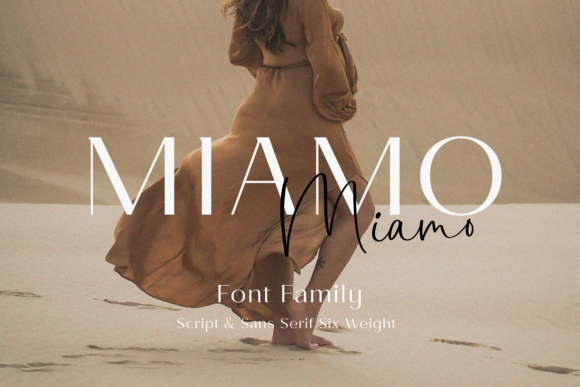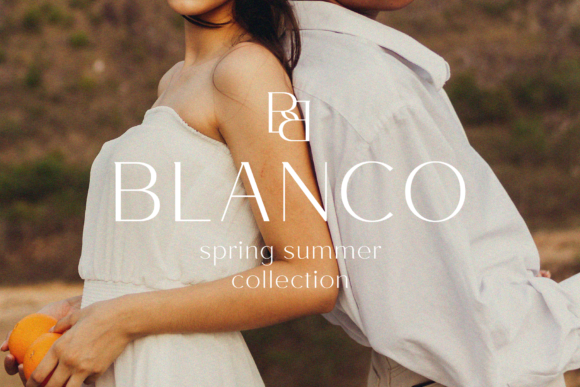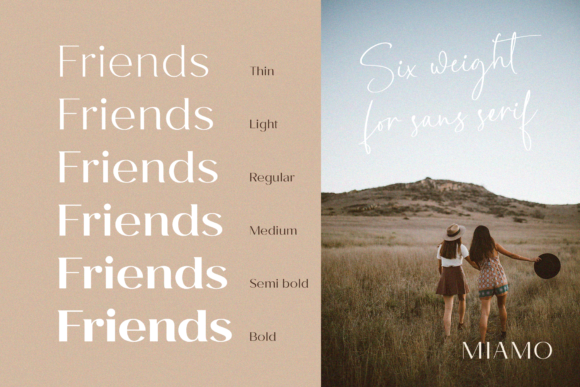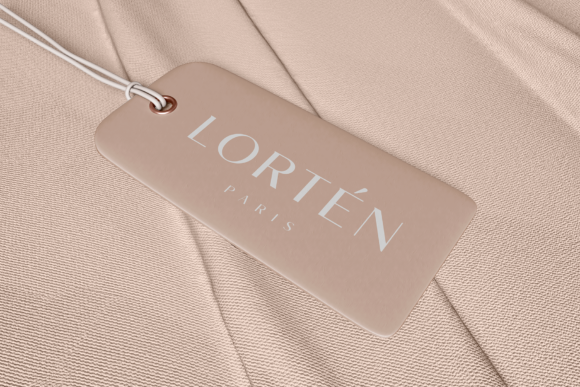
About the Miamo Font
Presenting Miamo Font, a unique and stylish typeface that will make your work stand out. Miamo consists of two fonts designed to complement each other perfectly. Together or apart, these fonts are ideal for adding a chic and cheery touch to your crafts. This font is PUA encoded which means you can access all glyphs and swashes with ease!
Miamo’s playful yet sophisticated style makes it ideal for headlines, short-form text in branding materials, and packaging design where its cheerful personality shines. It works particularly well for projects targeting a young, vibrant audience or those emphasizing a fun and approachable brand identity. Avoid using Miamo for large blocks of body text or UI elements where readability is paramount; its decorative elements can hinder legibility in extended use.
Pairing Miamo with a clean sans-serif like Open Sans for body copy creates a balanced contrast, allowing Miamo’s charm to stand out without overwhelming the design. Alternatively, a classic serif such as Garamond would add a touch of sophistication, complementing Miamo’s elegance. For a more modern feel, consider pairing it with a geometric sans-serif font.
Its overall personality is best described as cheerful and sophisticated, making it a versatile choice for projects requiring a balance of elegance and playfulness.